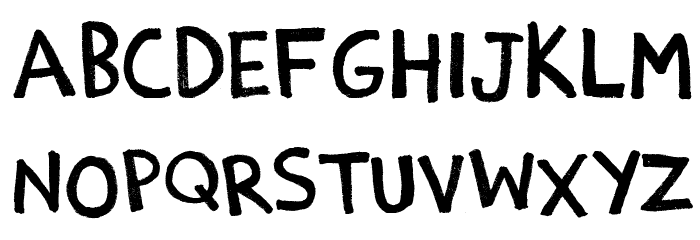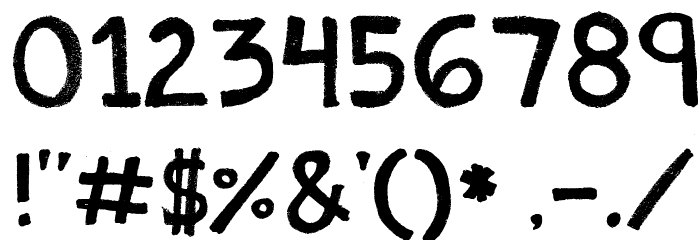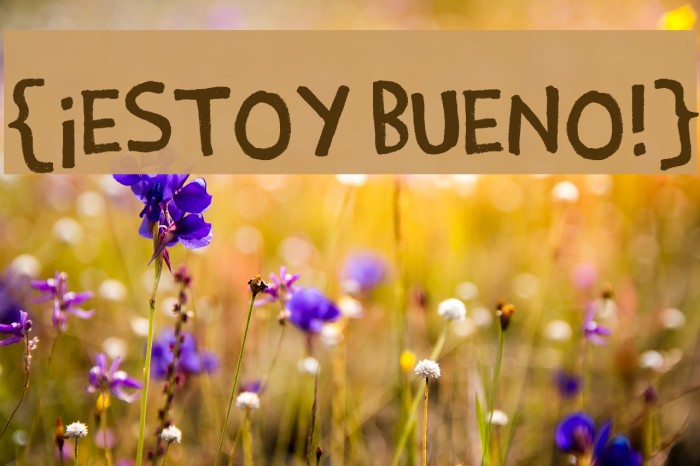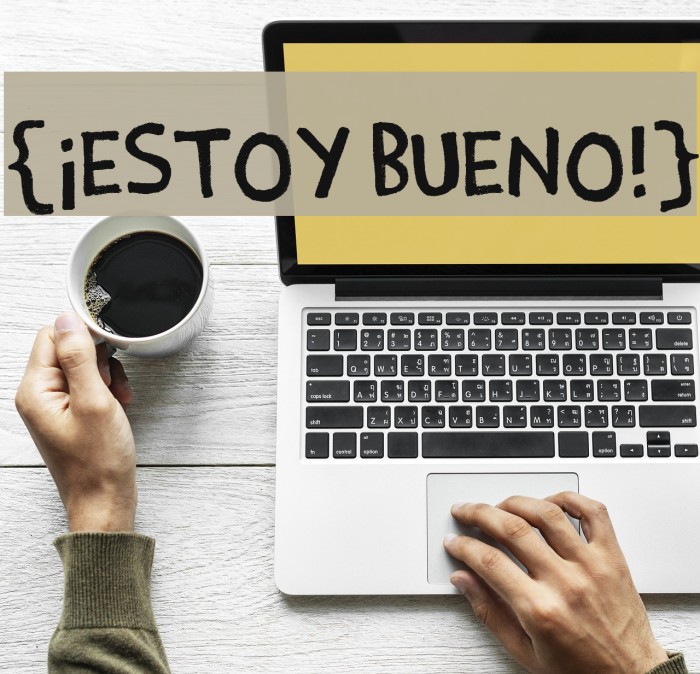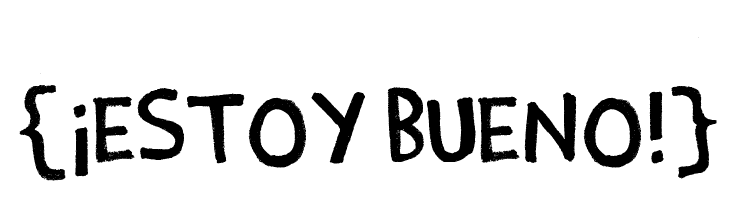
{¡Estoy Bueno!} Font
This font features a bold and playful handwritten style, characterized by its thick strokes and slightly irregular shapes that give it a casual and friendly appearance. The letters are slightly tilted, adding to the informal and dynamic feel. The numbers and special characters maintain the same playful aesthetic, ensuring consistency across all characters. This font is perfect for projects that require a personal touch or a sense of whimsy, such as children's books, greeting cards, or informal branding materials. Its boldness ensures readability while the unique style captures attention.
A bold, playful handwritten font with thick strokes and a casual feel.
- Proposed Projects: Ideal for children's books, greeting cards, informal branding, and playful designs.
- Category: Handwritten
- Overall Style: Playful